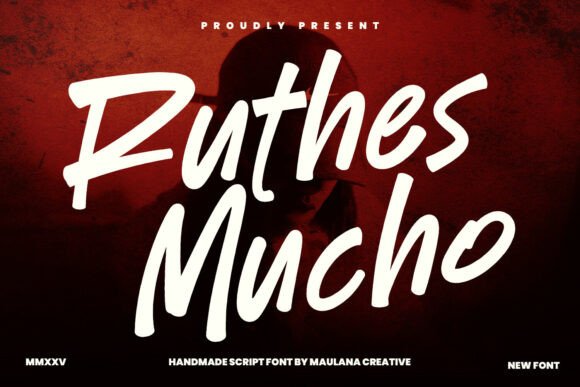
Ruthes Mucho Font: Elevate Your Designs with a Bold, Handmade Script
Ruthes Mucho is a bold, handmade script font designed to bring an energetic and expressive edge to your designs. With its fluid strokes, dynamic slants, and natural brush texture, this font embodies an authentic, handcrafted feel that’s perfect for projects requiring a modern yet raw, handwritten touch.
Key Features of Ruthes Mucho Font
- Fluid Strokes and Dynamic Slants: Ruthes Mucho’s fluid strokes and dynamic slants give it a natural, handcrafted appearance that’s full of energy and movement.
- Natural Brush Texture: The font’s natural brush texture adds a layer of authenticity, making it feel like it was truly hand-painted or drawn.
- Full Uppercase and Lowercase Letters: Ruthes Mucho includes a comprehensive set of full uppercase and lowercase letters, ensuring versatility for various design applications.
- Numerals, Punctuation, and Ligatures: The font also features numerals, punctuation marks, and stylish ligatures, providing designers with a wide range of creative options.
Design Applications for Ruthes Mucho Font
Ruthes Mucho’s unique characteristics make it suitable for a variety of design projects, including:
- Branding: Use Ruthes Mucho to create bold, eye-catching logos that make a lasting impression on your audience.
- Posters: Add a touch of personality to your posters with Ruthes Mucho’s dynamic, handcrafted style.
- Merchandise: Elevate your merchandise designs with a font that exudes confidence and energy.
- Album Covers: Ruthes Mucho is perfect for album covers, adding a raw, artistic touch to your music designs.
- Social Media Graphics: Make your social media graphics stand out with Ruthes Mucho’s bold, attention-grabbing style.
The Benefits of Using Ruthes Mucho Font
Ruthes Mucho offers several benefits to designers, including:
- Unique and Memorable: Ruthes Mucho’s bold, handmade style ensures your designs will be unique and memorable.
- Versatile: The font’s comprehensive character set and range of applications make it a versatile addition to any designer’s toolkit.
- Easy to Read: Despite its bold style, Ruthes Mucho remains easy to read, making it suitable for designs that require both style and legibility.
- Customizable: With its range of ligatures and stylistic alternatives, Ruthes Mucho offers plenty of opportunities for customization.
Tips for Using Ruthes Mucho Font Effectively
To get the most out of Ruthes Mucho, consider the following tips:
- Use it as a Headline Font: Ruthes Mucho’s bold style makes it perfect for headlines and titles.
- Experiment with Ligatures: Take advantage of Ruthes Mucho’s stylish ligatures to add personality to your text.
- Pair it with Contrasting Fonts: Combine Ruthes Mucho with simpler fonts to create visual interest and hierarchy in your designs.
- Play with Color and Texture: Enhance Ruthes Mucho’s handcrafted feel by pairing it with bold colors and textures.
Ruthes Mucho font is a bold, handmade script font that brings an energetic and expressive edge to your designs. Its unique combination of fluid strokes, dynamic slants, and natural brush texture makes it perfect for projects that require a modern yet raw, handwritten touch. With its comprehensive character set, versatility, and range of applications, Ruthes Mucho is an excellent addition to any designer’s toolkit.
FAQs About Ruthes Mucho Font
- What is Ruthes Mucho font? Ruthes Mucho is a bold, handmade script font designed for creative designs.
- Is Ruthes Mucho suitable for body text? While Ruthes Mucho is bold and expressive, it may not be the best choice for body text due to its script nature.
- Can I customize Ruthes Mucho? Yes, Ruthes Mucho offers ligatures and stylistic alternatives for customization.